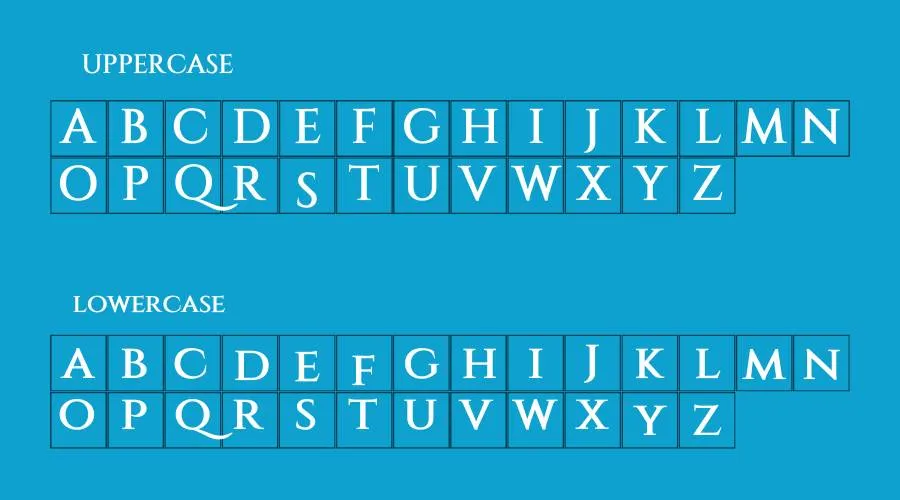
About Titanic Font
The font utilized by the Titanic movie is called "Trajan Bold." This font was created in 1989 by Carol Twombly and released by Linotype.
James Cameron, a well-known American writer, and director wrote and directed the 1997 romantic, dramatic, and disaster movie Titanic. This font is also paired with the rockwell font.